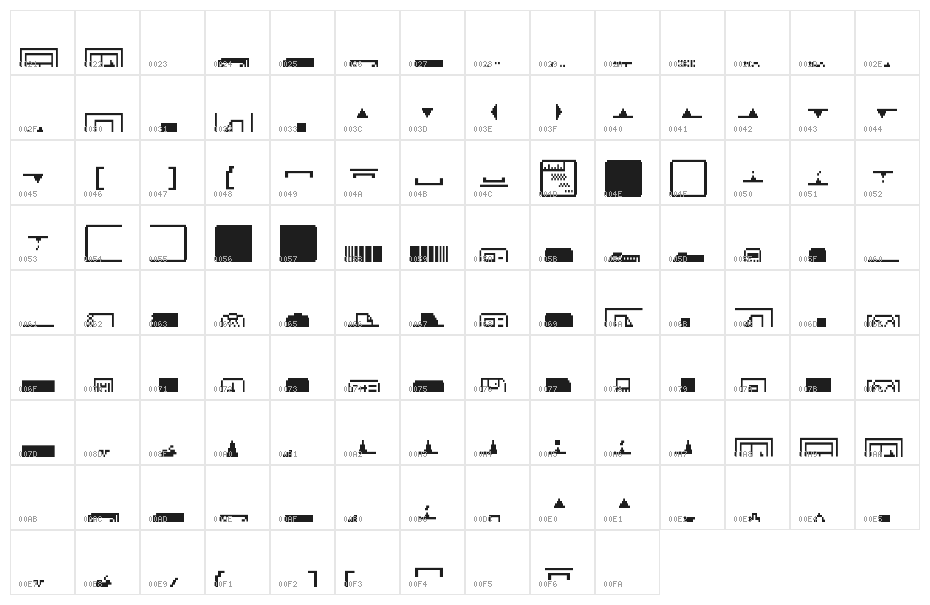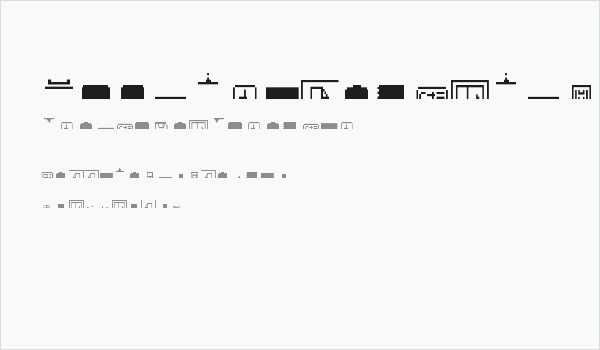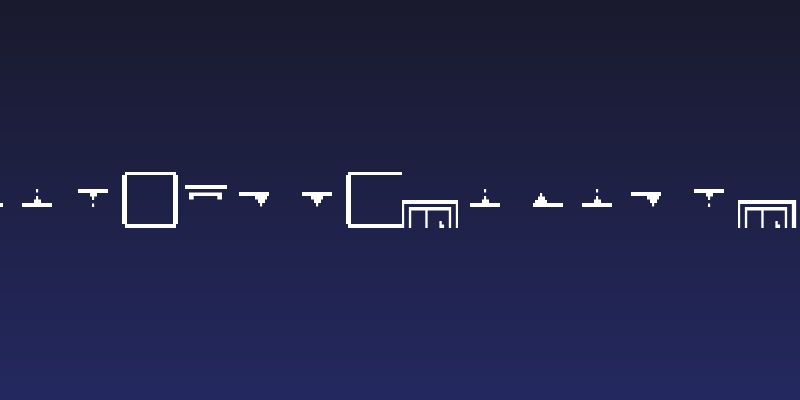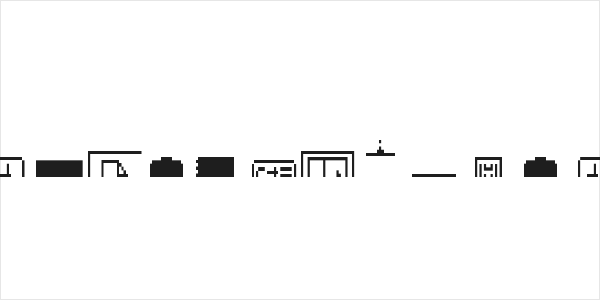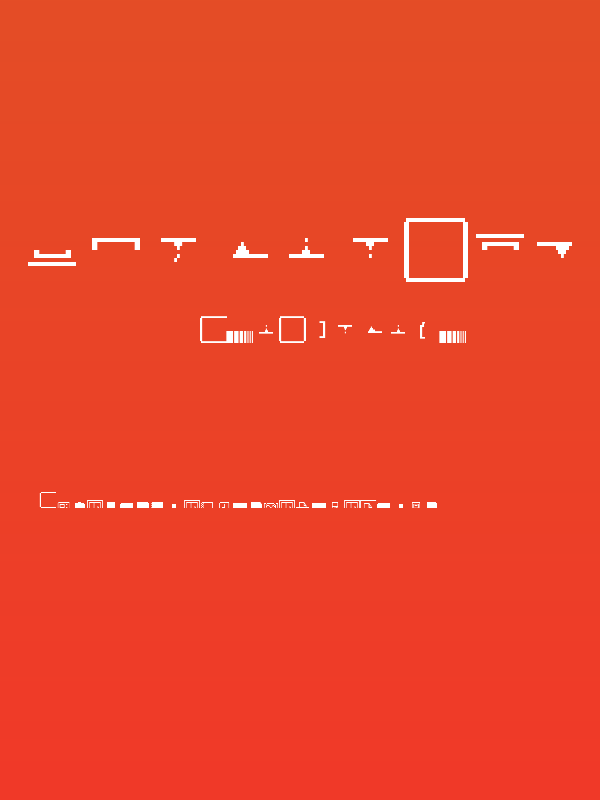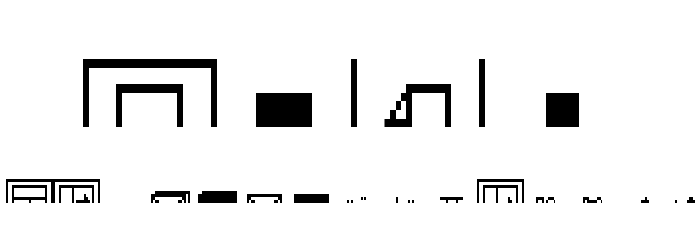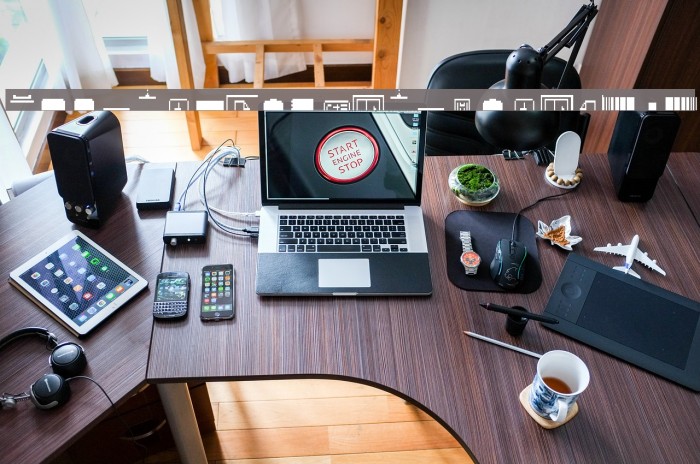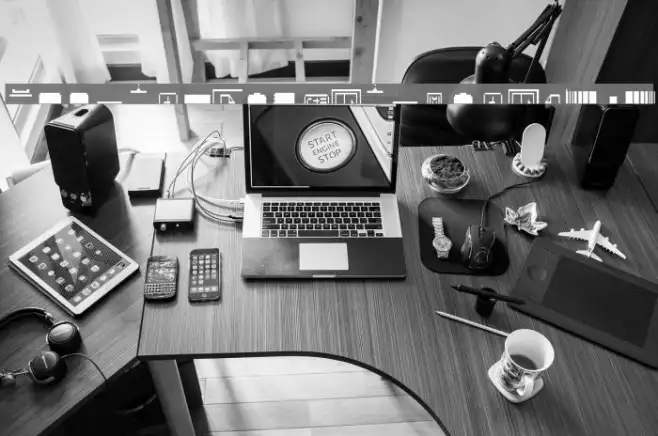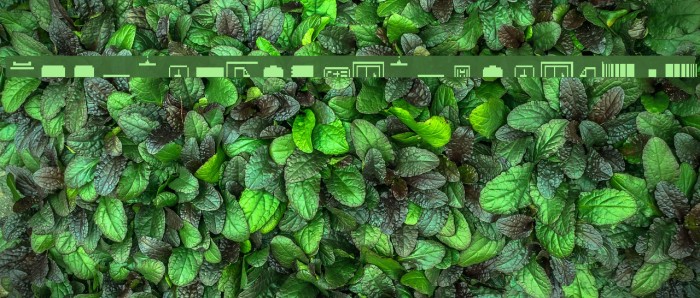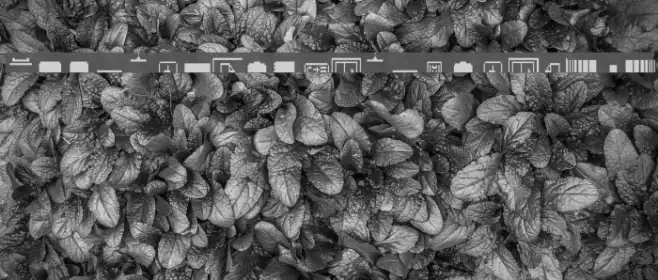
LisaProject Paper 2X3Y Font
LisaProject Paper 2X3Y Description
A highly abstract and decorative font with geometric shapes and minimalistic design elements.
| Overall Style | Modern, Abstract |
| Use Case | Logos, Artistic displays |
| Proposed Projects | Art projects, experimental designs, abstract posters. |